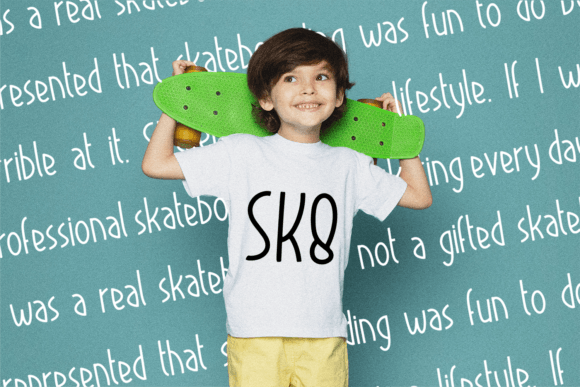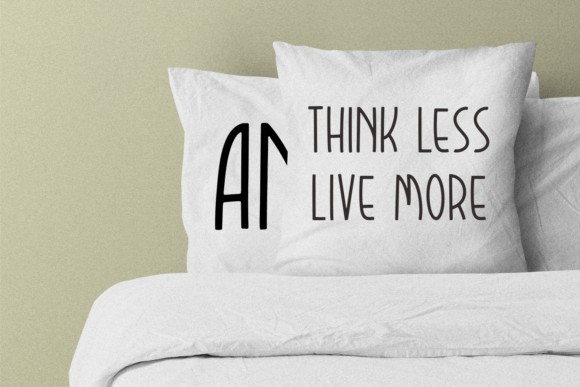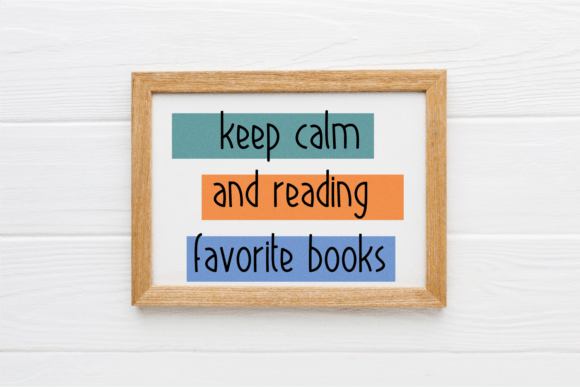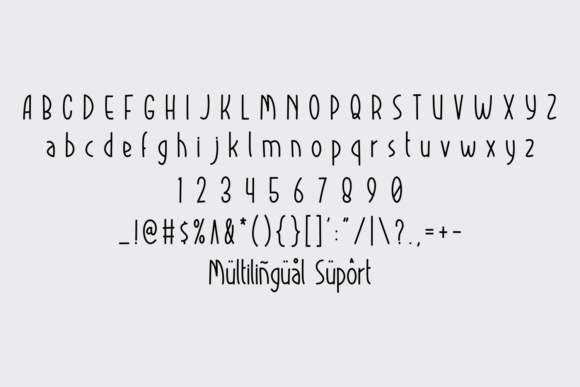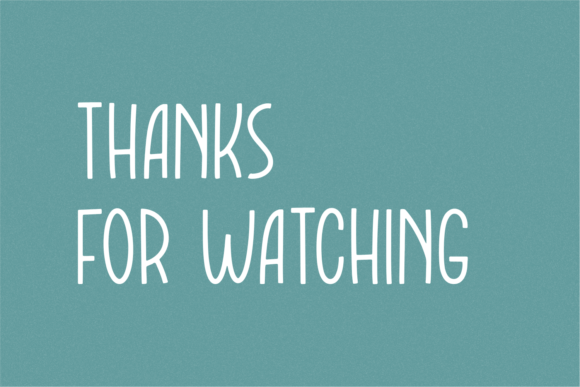
Introduction to Mideo Font
Remember that moment when you’re brainstorming ideas for a creative project, and the perfect font just slips into your mind? For designers, the right font can make all the difference between a bland and a breathtaking design. One such font that has captured the hearts of many is the Mideo Font.
With its slim, cute, and adaptable smooth handwritten style, the Mideo Font is an ideal design resource for a variety of projects. Whether you’re crafting greeting cards, designing t-shirts, or creating social media graphics, this high-quality font is sure to elevate your work. Its versatility makes it perfect for use with transparent backgrounds, allowing you to focus on the creative aspect of your project without worrying about the font getting in the way.
Key Features of Mideo Font
- High-quality design for creative projects, perfect for designers and artists.
- Comes with a transparent background, allowing for seamless integration with any design resource.
- Features a unique and modern design style, ideal for modern and minimalist design projects.
- Includes a wide range of characters and glyphs, including international characters and symbols.
- Designed at 300 DPI resolution, ensuring crisp and clear display on high-resolution screens.
- Perfect for use in digital design, including web design, graphic design, and UI/UX design projects.
Honest Review: Mideo Font
I recently had the opportunity to work with the Mideo Font, and I must say it’s been a game-changer for my creative projects. The high quality of this font has truly taken my designs to the next level.
- ✨ Elegant and modern design aesthetic that’s perfect for contemporary projects
- ✨ Smooth and seamless curves, making it ideal for logotypes and branding
- ✨ Transparent background, allowing for easy customization and flexibility
- ⚠️ Limited character set, which may require additional font files for more complex projects
- ⚠️ May not be compatible with all design software or operating systems
Mideo Font is ideal for creating eye-catching titles, headings, and body text in a variety of design projects, including:
Branding materials, such as logos and business cards.
Marketing materials, like brochures and flyers.
Websites and landing pages.
What is the recommended resolution for using the Mideo Font?
The Mideo Font is designed to be highly legible at various resolutions, including high-resolution displays. However, for optimal results, we recommend using the font at a resolution of at least 300 DPI, ensuring crisp and clear typography in your design projects.